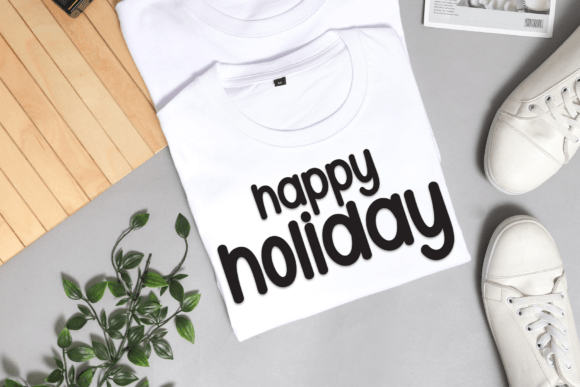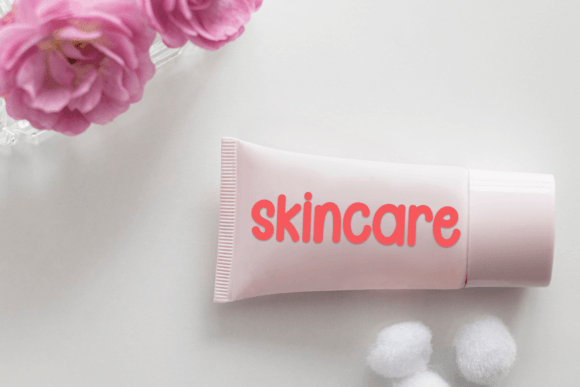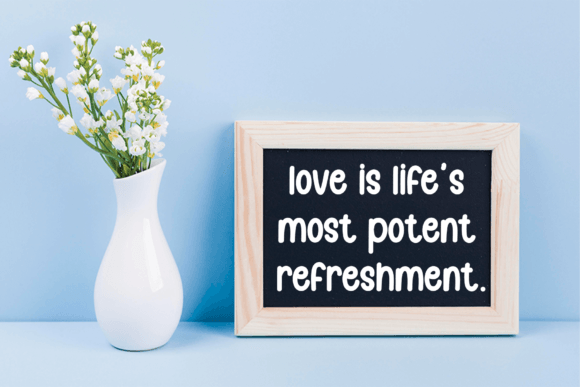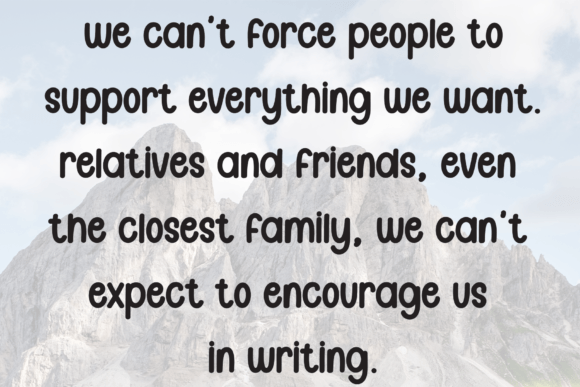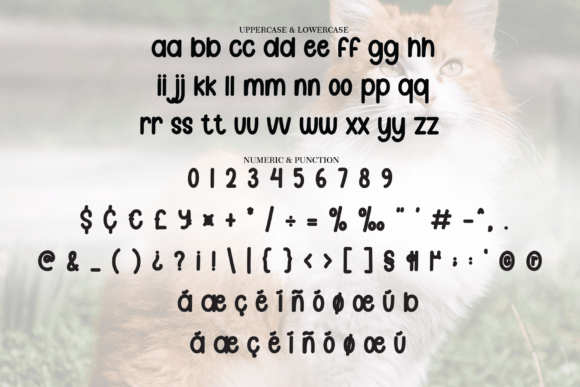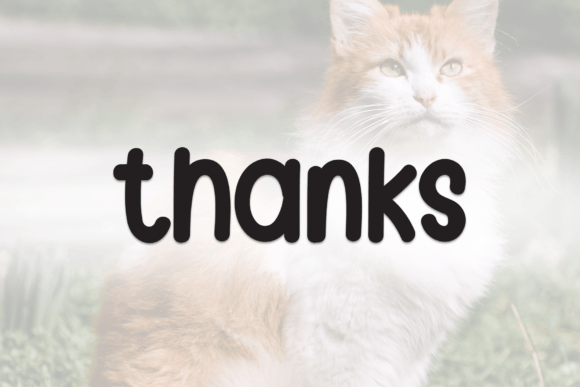
The Fluffy Cat Font: A Whimsical Typeface for Designers and Crafters
Are you a designer or crafter looking for a font that captures the playfulness and warmth of our feline friends? Look no further than the Fluffy Cat Font, a charming script and handwritten typeface that’s purr-fect for adding a touch of whimsy to your designs. In this article, we’ll explore the features and benefits of the Fluffy Cat Font, and show you how to use it to create adorable and engaging designs.
What is the Fluffy Cat Font?
The Fluffy Cat Font is a unique and charming typeface that’s inspired by the soft and cuddly nature of cats. With its gentle curves and playful strokes, this font is sure to bring a smile to anyone’s face. Whether you’re designing a greeting card, a children’s book, or a craft project, the Fluffy Cat Font is the perfect choice for adding a touch of sweetness and playfulness to your design.
Features of the Fluffy Cat Font
The Fluffy Cat Font has several features that make it a standout typeface for designers and crafters. Some of its key features include:
- Soft and gentle curves: The Fluffy Cat Font features soft and gentle curves that give it a warm and inviting feel.
- Playful strokes: The font’s playful strokes add a touch of whimsy and playfulness to any design.
- Script and handwritten style: The Fluffy Cat Font has a script and handwritten style that’s perfect for creating personalized and unique designs.
- Easy to read: Despite its playful nature, the Fluffy Cat Font is easy to read and understand, making it perfect for body text and headings.
Uses for the Fluffy Cat Font
The Fluffy Cat Font is a versatile typeface that can be used for a variety of design projects. Some popular uses for the font include:
- Greeting cards: The Fluffy Cat Font is purr-fect for creating adorable and personalized greeting cards for cat lovers.
- Children’s books: The font’s playful and whimsical nature makes it a great choice for children’s books and educational materials.
- Craft projects: The Fluffy Cat Font is perfect for craft projects, such as scrapbooking, journaling, and card making.
- Social media graphics: The font’s playful nature makes it a great choice for social media graphics, such as Facebook posts and Instagram stories.
Tips for Using the Fluffy Cat Font
Here are some tips for using the Fluffy Cat Font in your designs:
- Pair it with a simple background: The Fluffy Cat Font is a statement typeface, so pair it with a simple background to make it stand out.
- Use it for headings and titles: The font’s playful nature makes it perfect for headings and titles, but you can also use it for body text for a more whimsical feel.
- Experiment with colors: The Fluffy Cat Font looks great in a variety of colors, so experiment with different hues to find the perfect one for your design.
- Add some cat-themed graphics: Take your design to the next level by adding some cat-themed graphics, such as cat silhouettes or cat emojis.
The Fluffy Cat Font is a charming and whimsical typeface that’s perfect for designers and crafters who want to add a touch of playfulness to their designs. With its soft and gentle curves, playful strokes, and script and handwritten style, this font is sure to bring a smile to anyone’s face. Whether you’re designing a greeting card, a children’s book, or a craft project, the Fluffy Cat Font is the perfect choice for creating adorable and engaging designs.